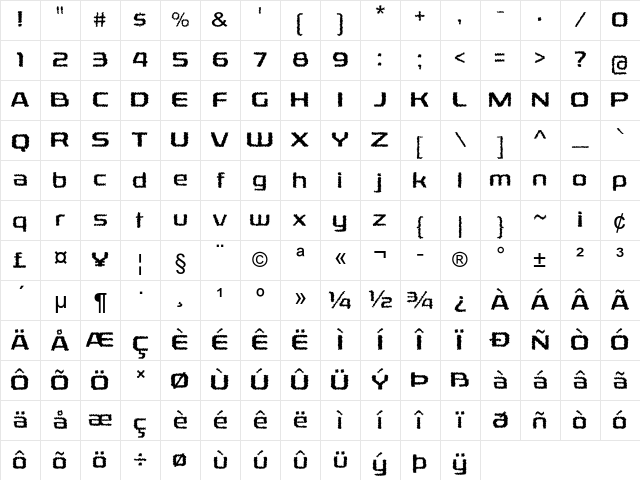
Shakies Regular
Shakies Family
Shakies Regular
Design Context for Shakies
Shakies is a composed and adaptable typeface that performs quietly and consistently across a wide range of design contexts.
Pro Tip: Use Shakies in both headline and body roles to test its range before committing to a single application.